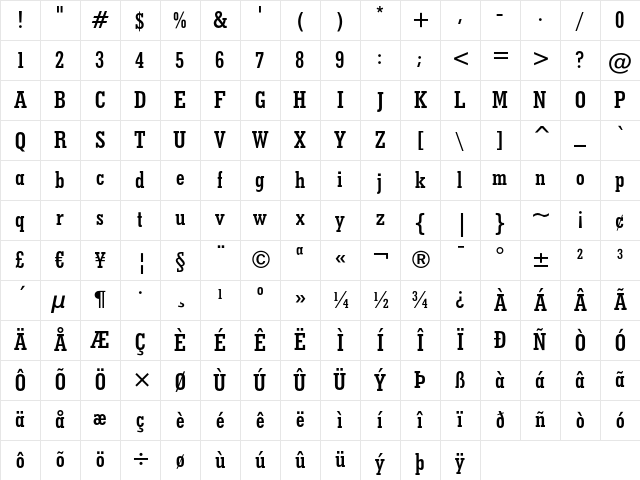
Geometric Slabserif 703 Bold Condensed Free Font
Geometric Slabserif 703 Bold Condensed
Complete Geometric Slabserif 703 Bold Condensed glyph index. Displaying only characters natively supported by Geometric Slabserif 703 Bold Condensed font.
Design Context for Geometric Slabserif 703
Geometric Slabserif 703 features prominent, blocky serifs that give it a confident, grounded presence - equally at home in editorial settings and bold branding work. Its bold stroke weight gives it real presence on the page. Its narrow stance lets it pack a punch even in space-constrained designs.
Pro Tip: Use Geometric Slabserif 703 for headlines and subheadings where its slab serifs can make an impression. It also holds up well in mid-size body copy thanks to its sturdy construction.